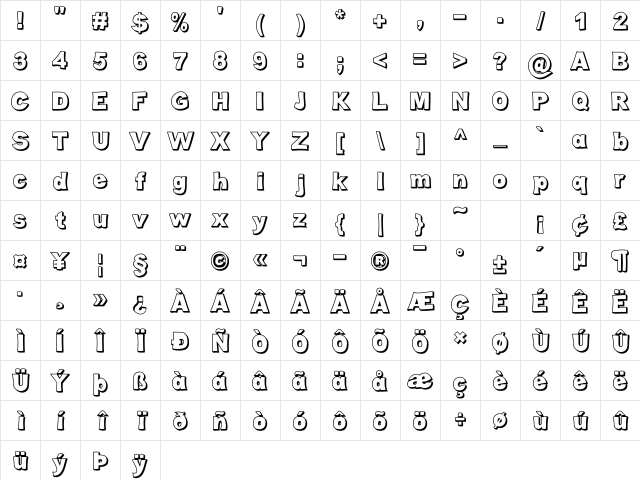
Cabold Comic Regular
Foundry: StudioTypo
Designer: Mehmet Abaci
Design Context for Cabold Comic
Cabold Comic has an approachable, lighthearted character - its loose, expressive forms are well-suited to children's content, casual branding, and fun-first design.
Font Pairing: Pairs well with a rounded or humanist sans for body copy, maintaining the friendly tone without relying on Cabold Comic to carry extended reading.
Pro Tip: Use Cabold Comic at larger display sizes where its expressive character can land. Pair with a clean, simple sans for body copy to maintain readability.